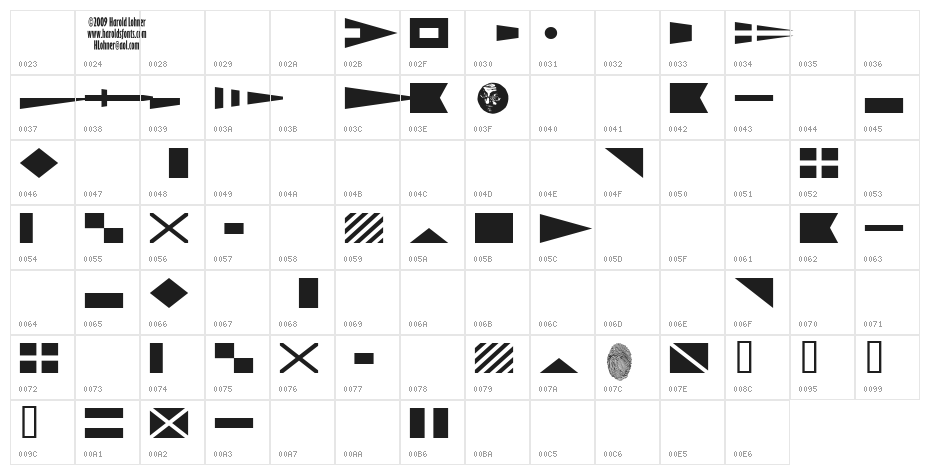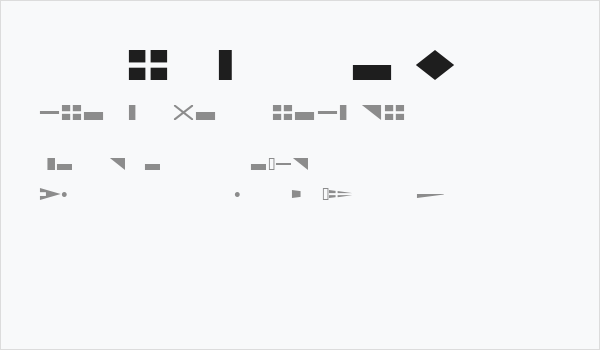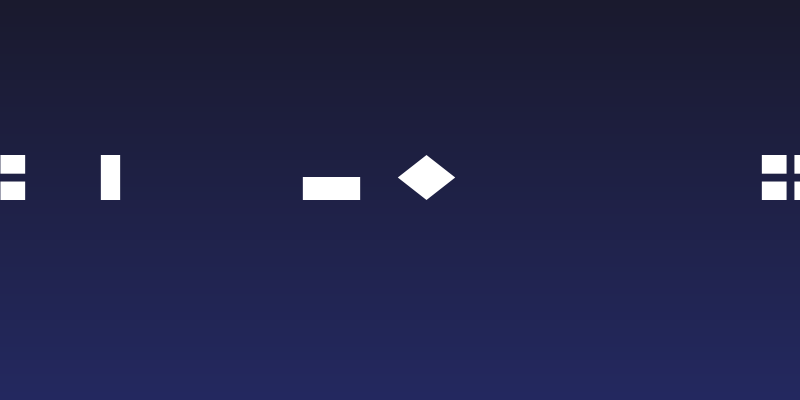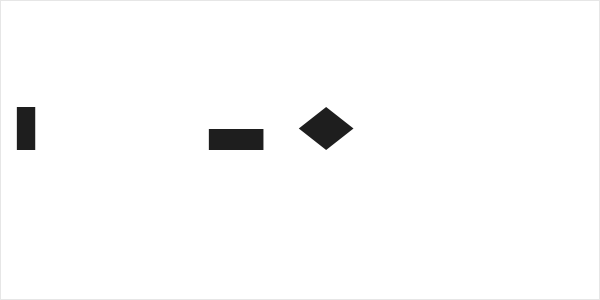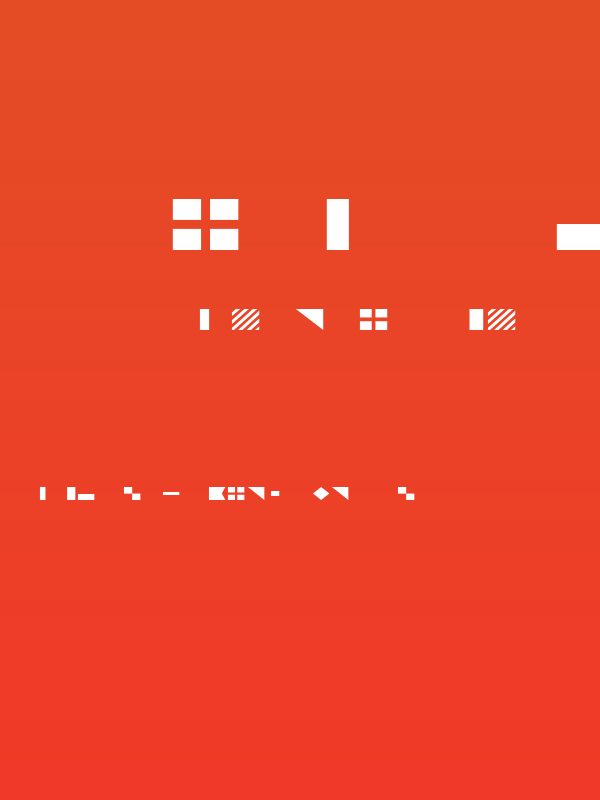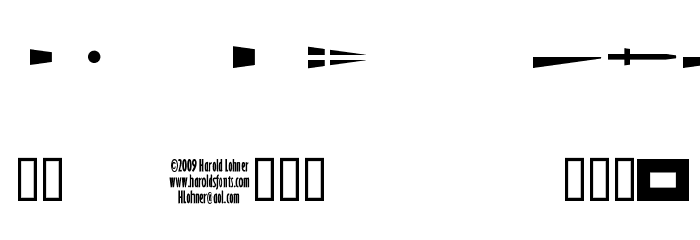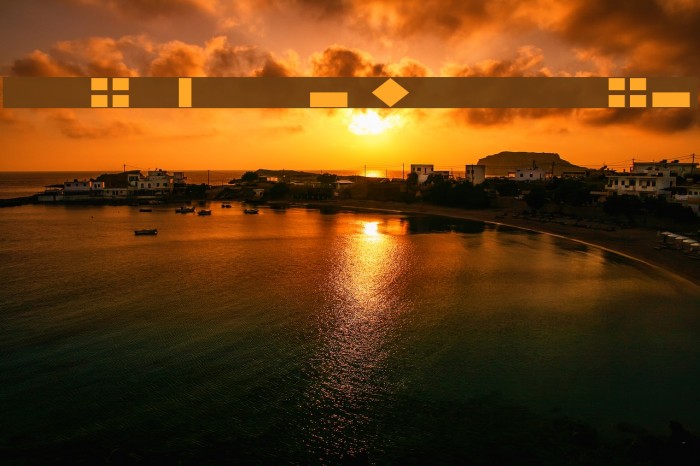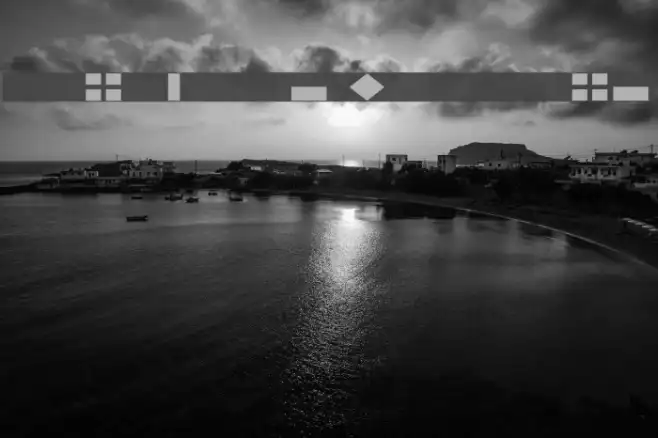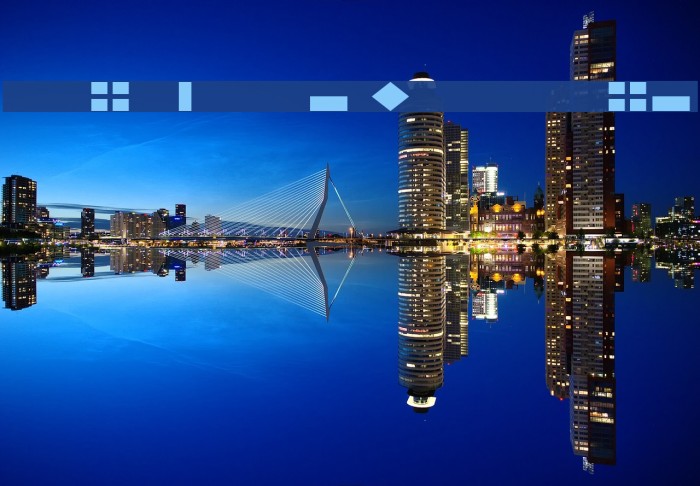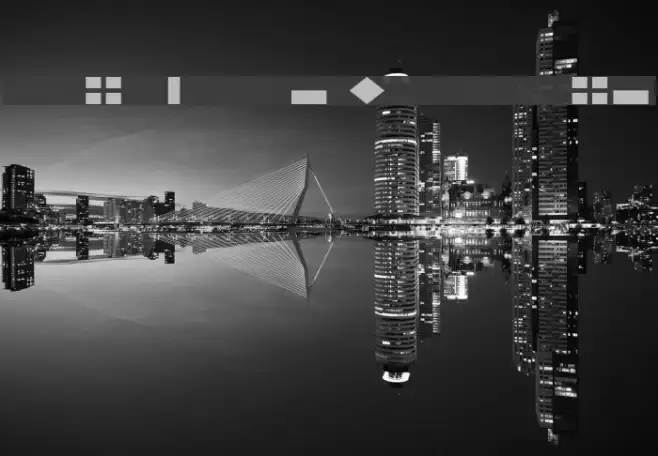
Maritime Flags Red Font
Maritime Flags Red Description
This set of symbols is inspired by maritime flags, featuring bold geometric shapes and patterns. Each character is represented by a unique flag design, incorporating elements like stripes, triangles, and squares. The style is reminiscent of nautical signaling, with a strong emphasis on clarity and distinction. The symbols are primarily black and white, providing a stark contrast that enhances visibility and recognition. The collection includes a variety of shapes, from simple lines to complex intersections, making it versatile for creative projects.
| Use Case | Logos, Decorative elements, Educational materials |
| Proposed Projects | Ideal for use in maritime-themed designs, educational materials about nautical signaling, or creative projects requiring unique symbolic representation. |